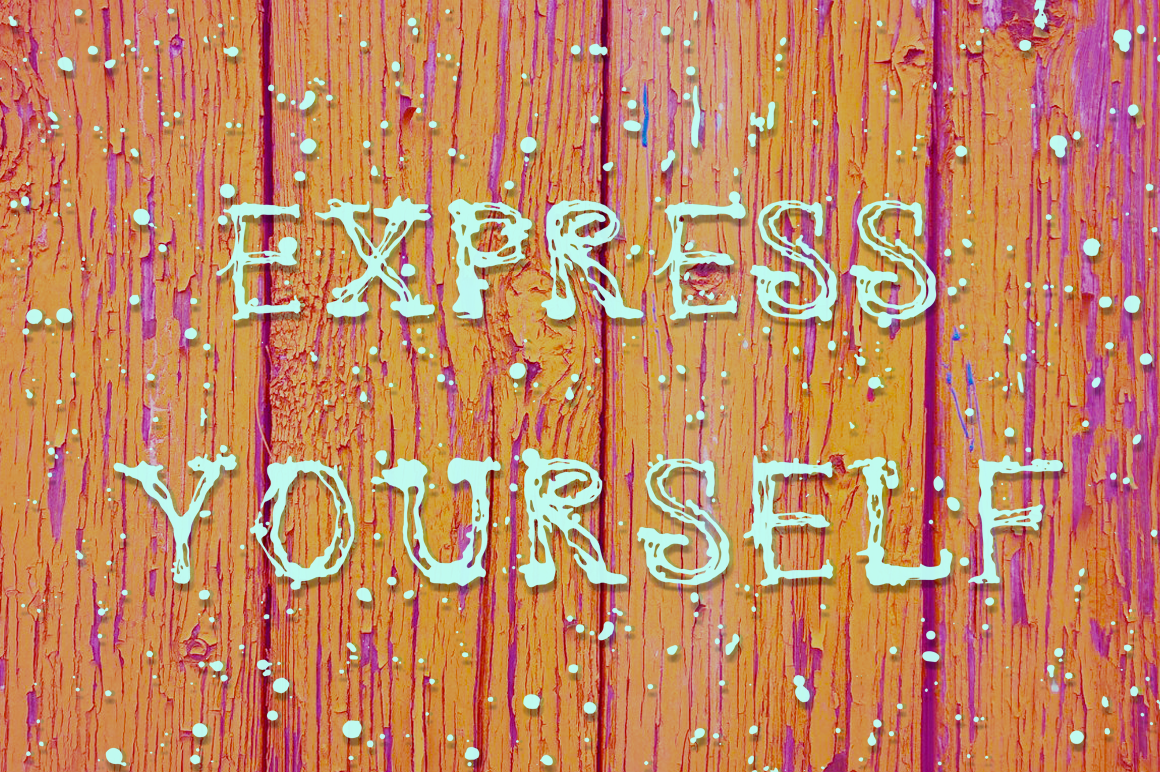
Express Yourself Font + Bonus
Introducing the new Express Yourself Font! Is all about fun, for creative expression. Each letter painted in the technique of dripping by using an enamel paint and then carefully processed on the computer. Perfect for: Branding, Logos, Greeting Cards, Stationery Design, Invitations, T-shirts, Packaging Posters, Typographic Design and more!